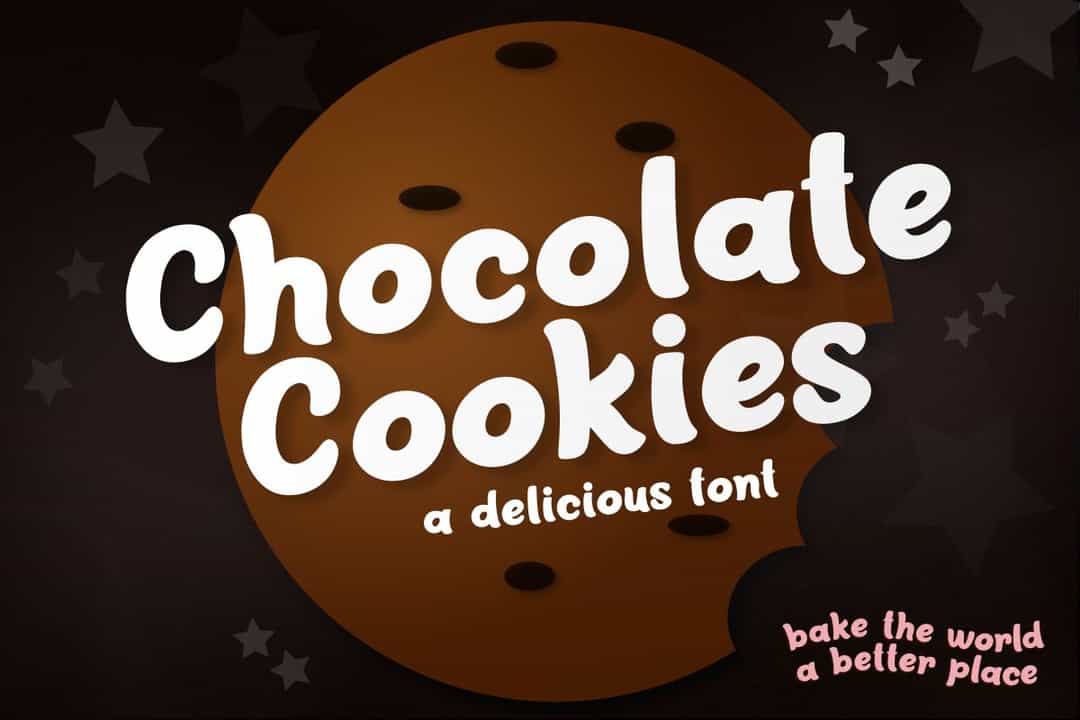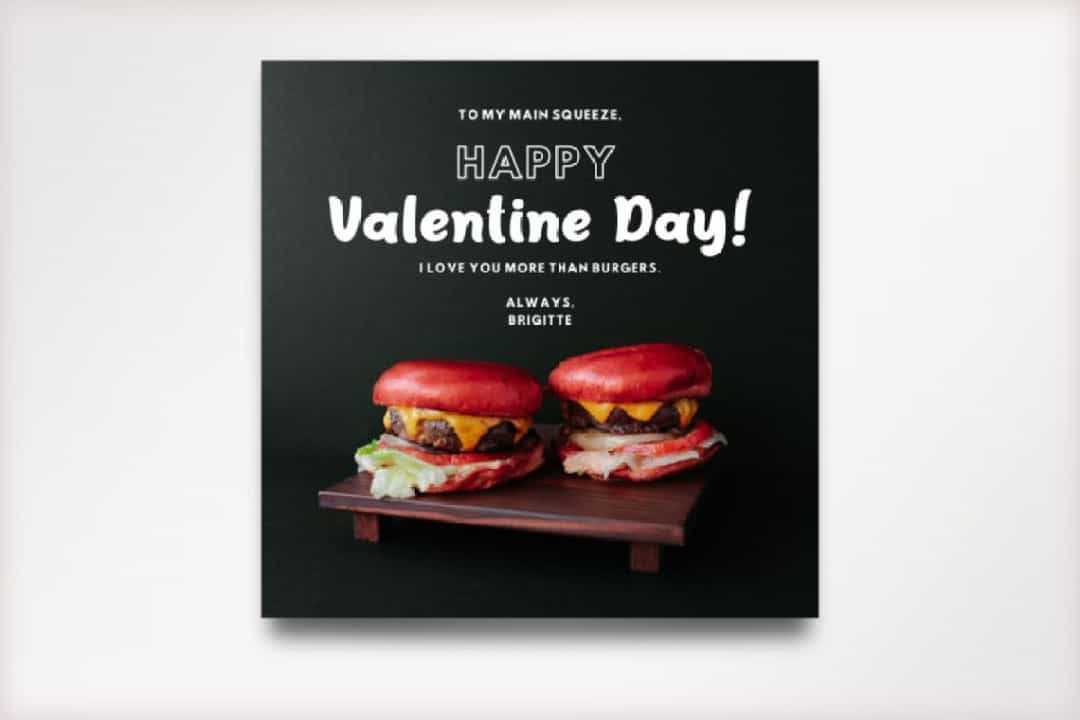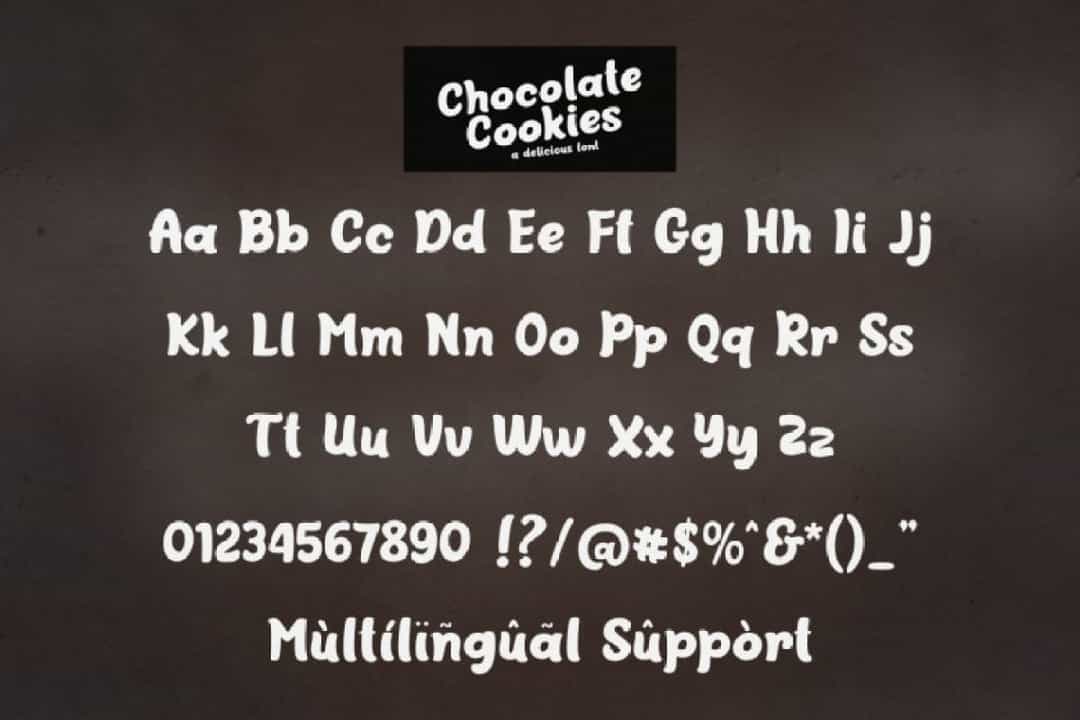
Chocolate Cookies is an original hand-made font where the letters glide smoothly and then leave a more rough and drawn stroke that gives it a very natural and fluid style, this font also includes lower and upper case letters, punctuation and comes with multilingual support.